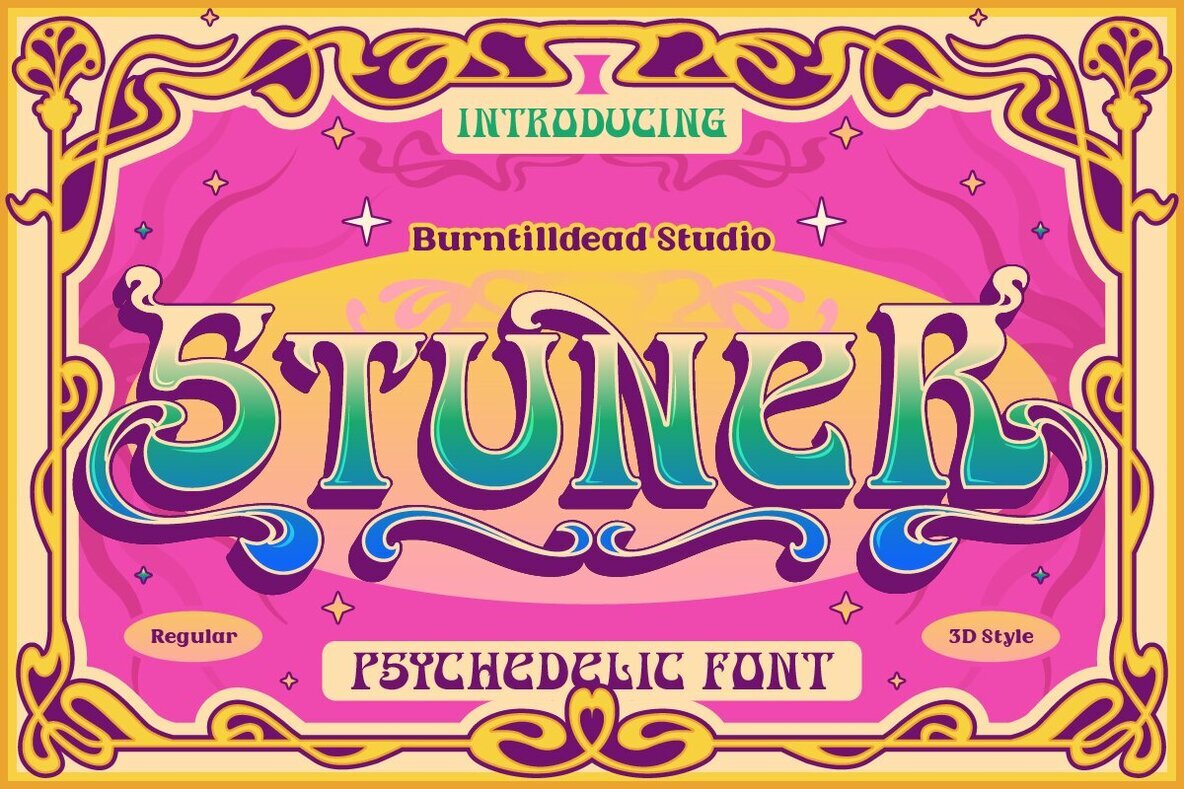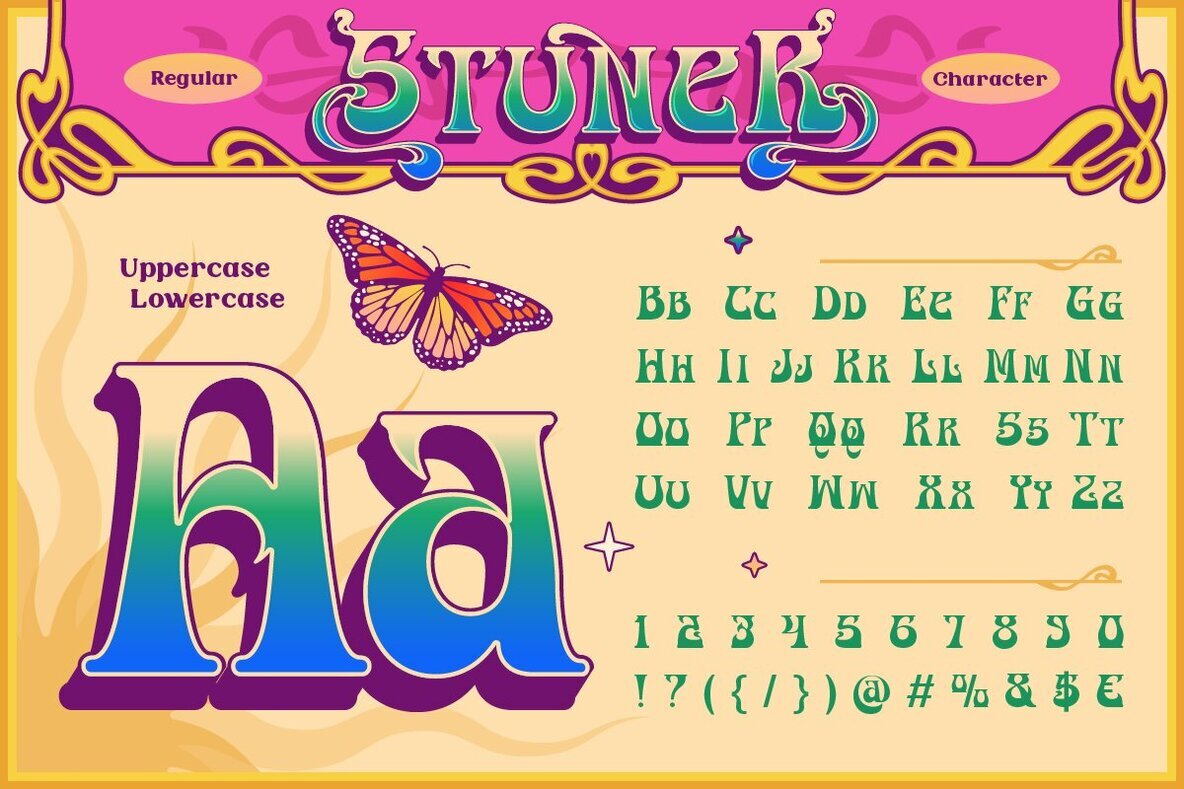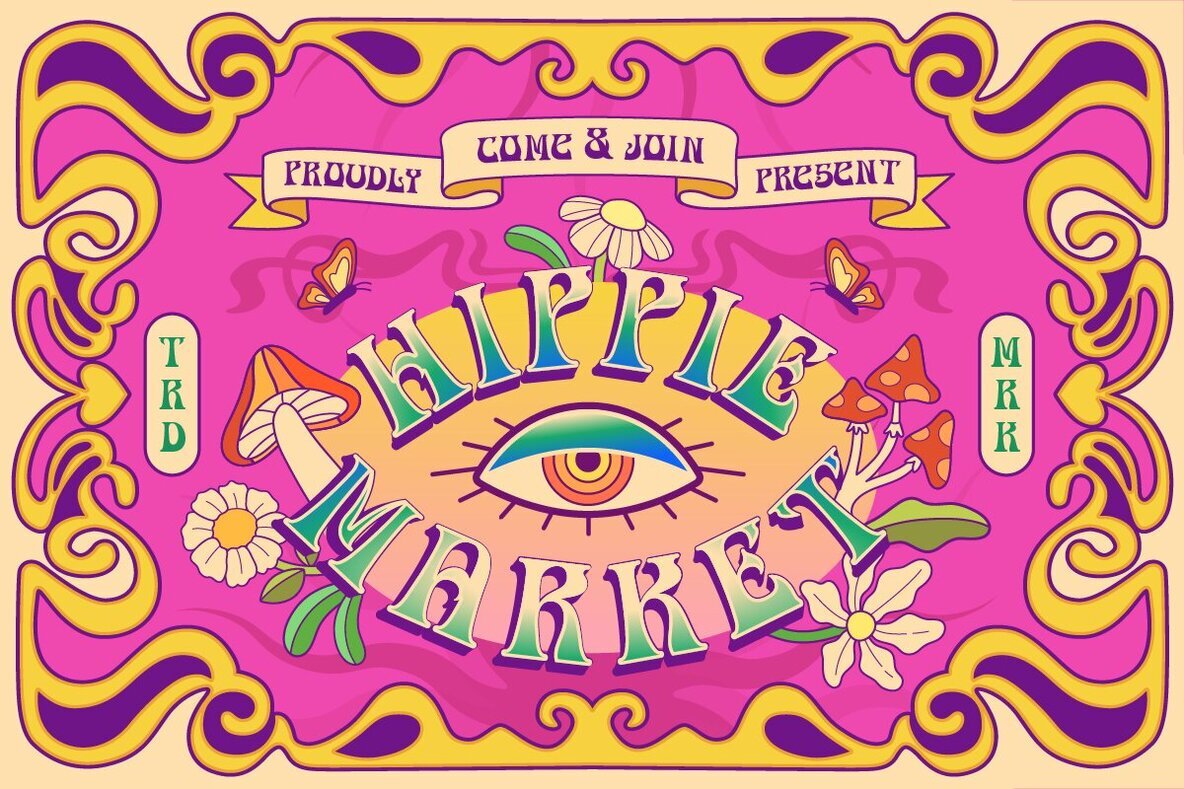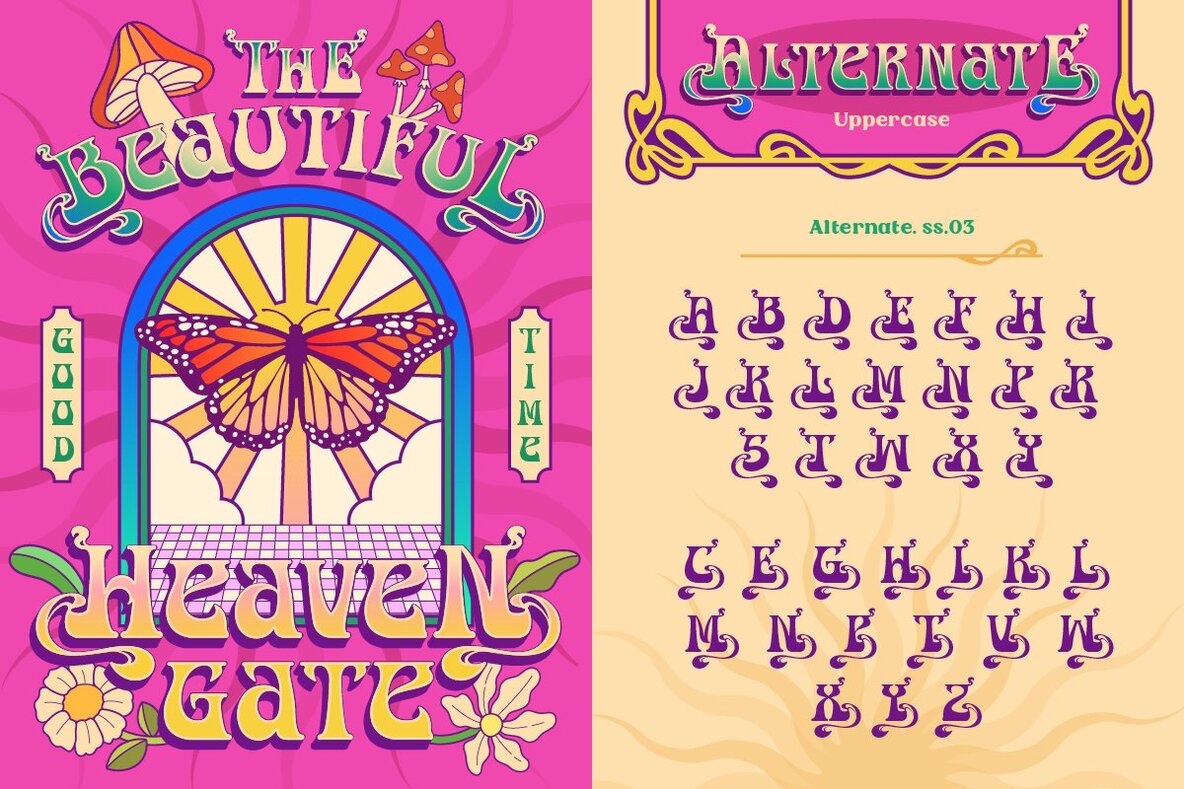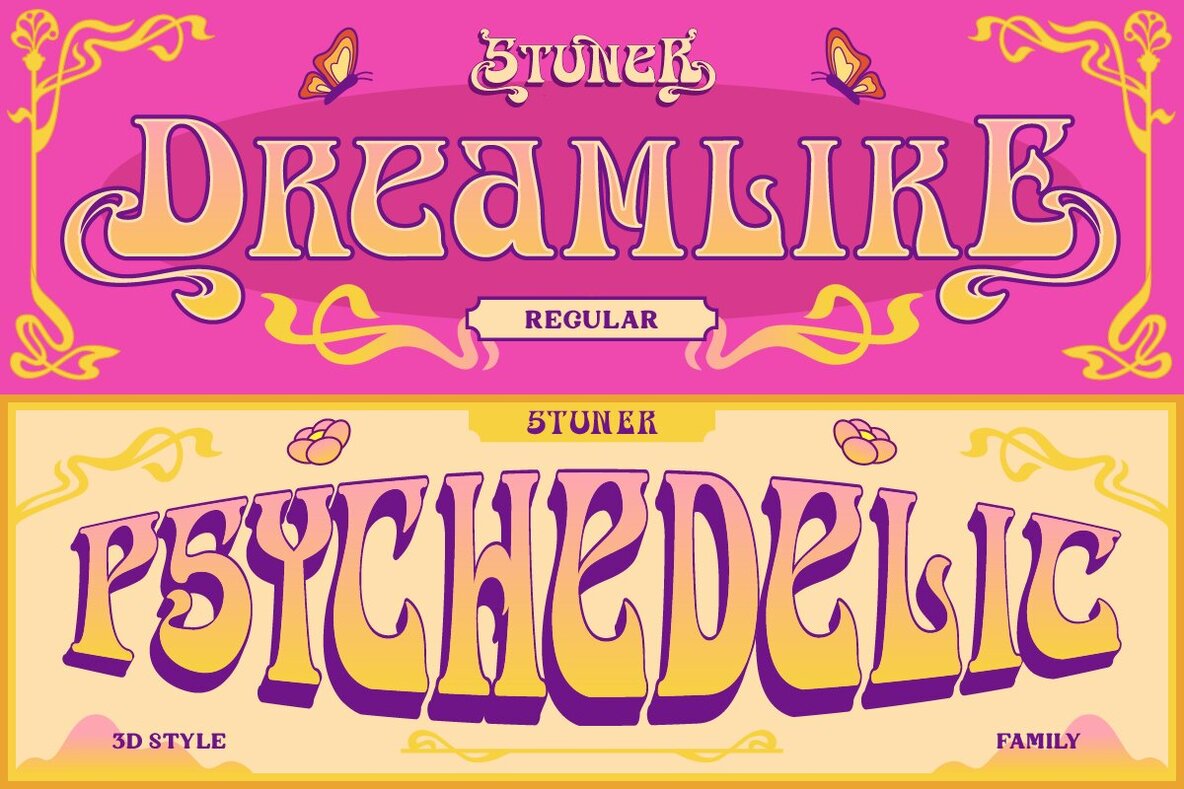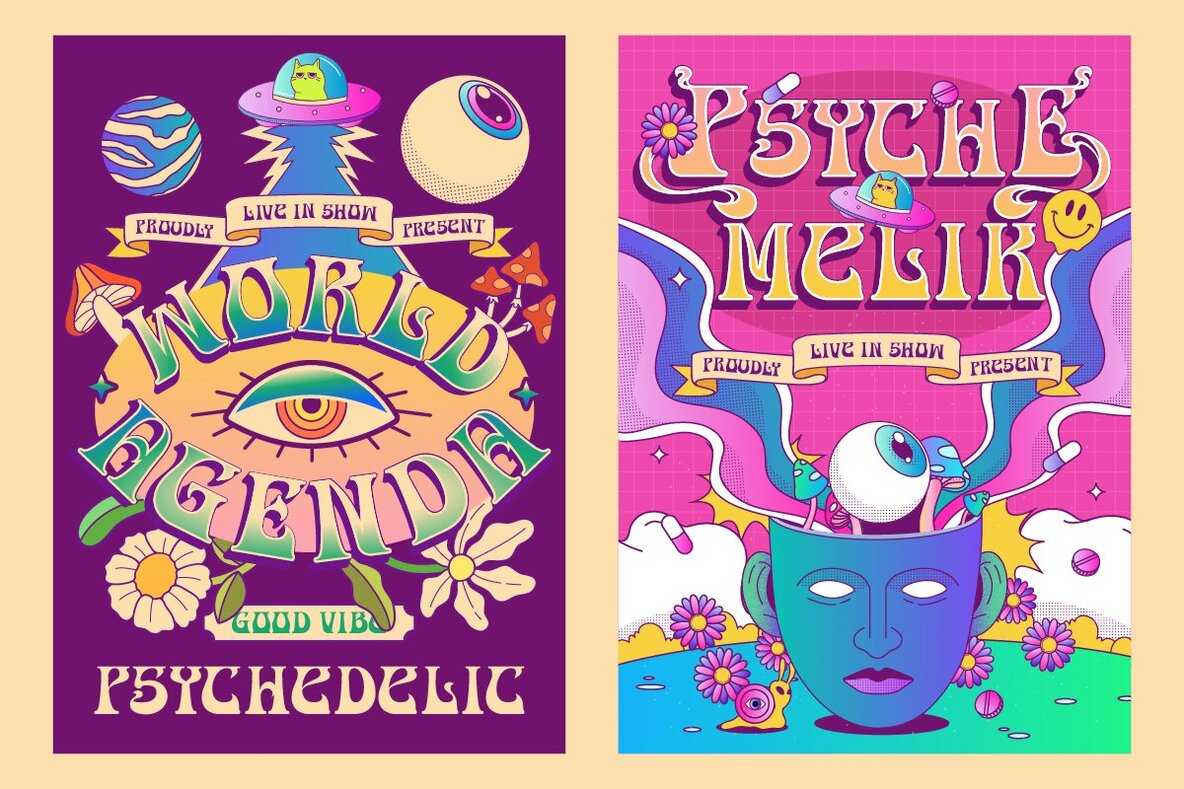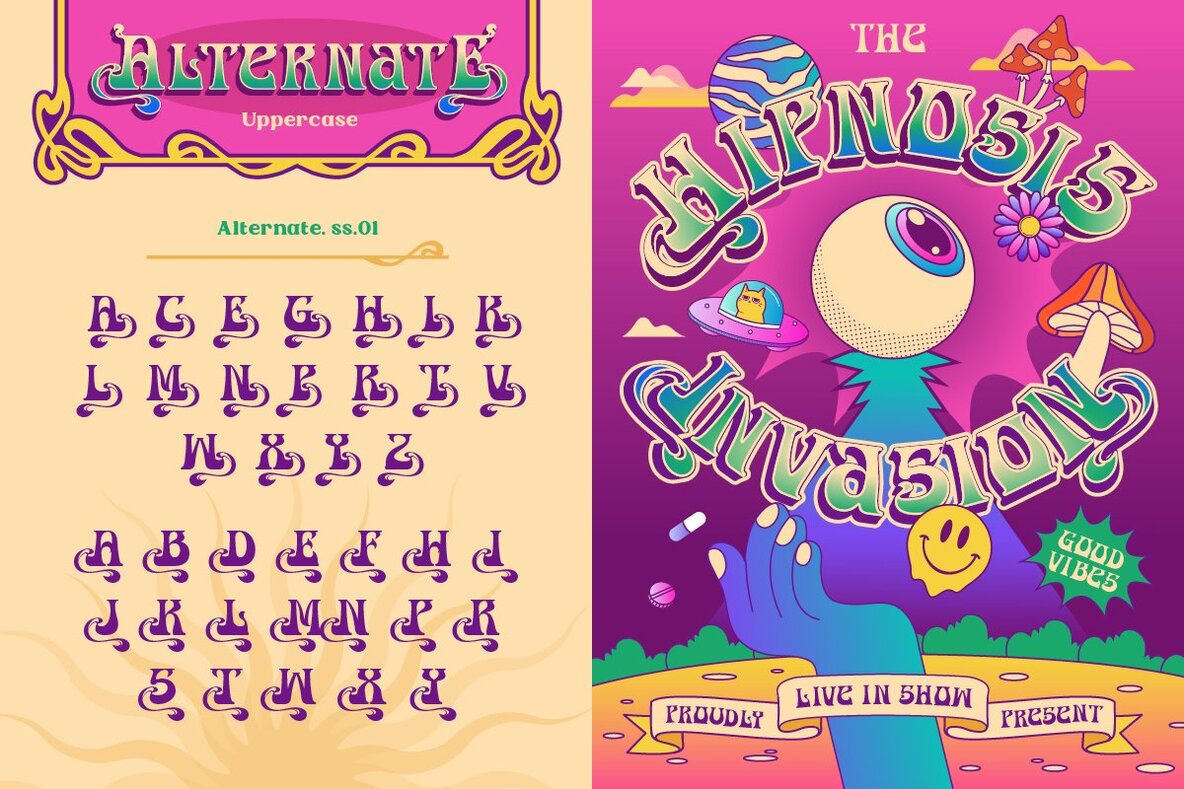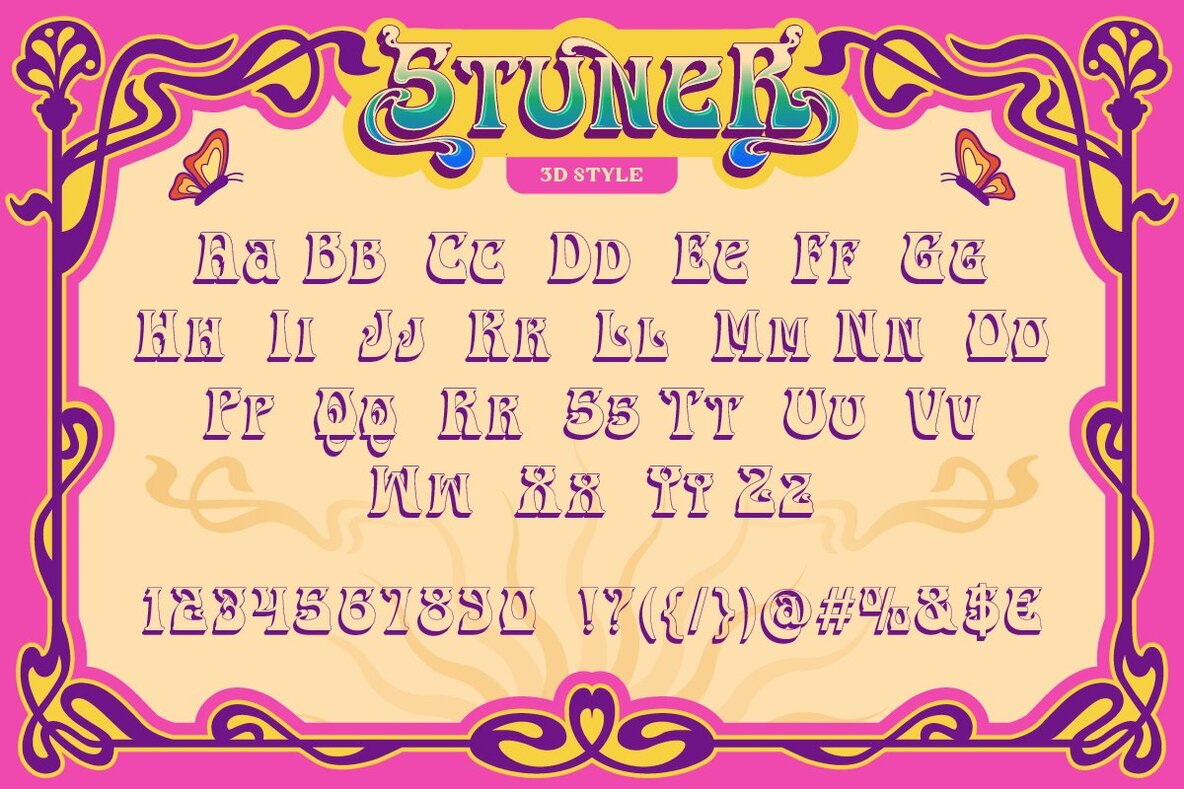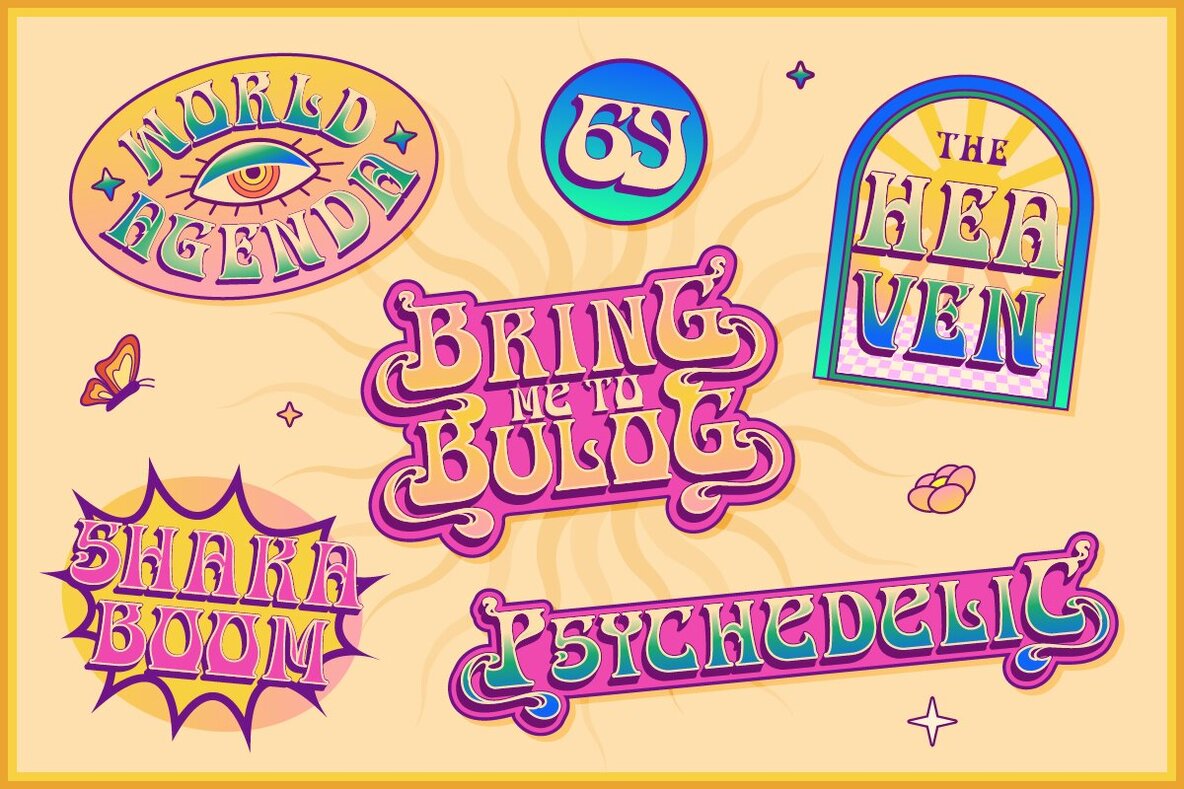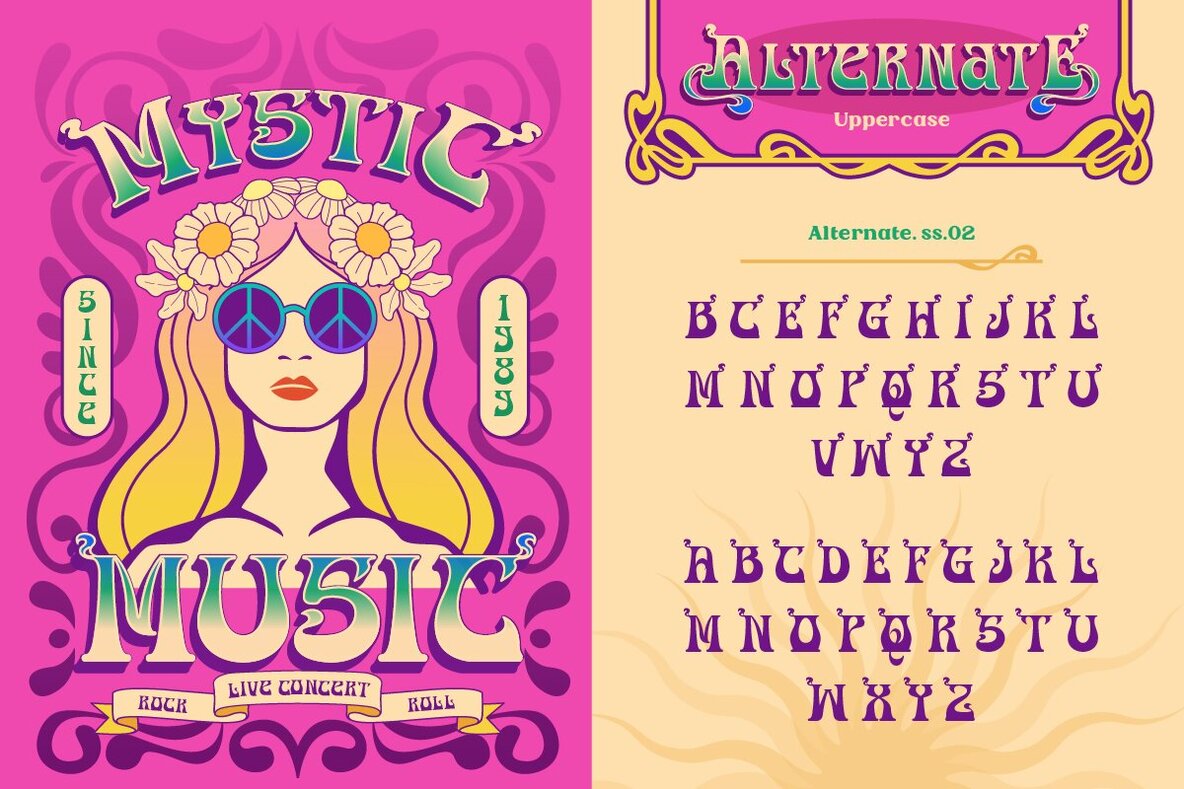
Stuner Font
Stuner Regular
Stuner 3D
Dive into a realm where retro and contemporary design converge with Stuner, a versatile font brimming with playful, psychedelic energy. Reflecting the iconic '60s and '70s vibe, Stuner is available in two captivating styles: Regular and 3D. The font’s asymmetrical shapes lend it a nostalgic, handmade aesthetic, while the 3D style adds a dynamic, dimensional twist that makes each letter leap off the page. Perfect for: Transform your visual storytelling into an extraordinary experience with Stuner.Stuner: Psychedelic Font with Modern Flair